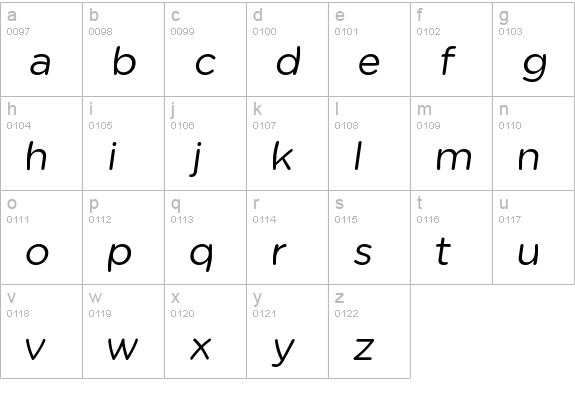
Chams Italic Font Details
Chams Italic is a distinctive, italic variant in the Chams typeface family \xE2\x80\x94 well suited to design and typography projects.
Chams Italic font is a stunning typeface that exudes elegance and sophistication. Its beautifully curved letterforms and graceful strokes make it a perfect choice for adding a touch of class to any design project. With its unique blend of classic charm and modern appeal, Chams Italic font captures attention and leaves a lasting impression. Whether used in invitations, branding, or editorial designs, this font will effortlessly elevate your work to a whole new level of refinement. The free Chams Italic font is not only visually captivating but also highly versatile. It seamlessly adapts to various design styles, making it suitable for a wide range of applications. Its italicized form adds a sense of dynamism and movement, making it ideal for conveying a sense of motion or energy. Downloading Chams Italic font is easy and completely free. Simply visit FontsMarket.com, where you can find this font and many other high-quality typefaces. By making Chams Italic font freely available, it allows designers, creatives, and enthusiasts to access this beautiful font without any barriers. So if you're looking to add a touch of sophistication to your designs without breaking the bank, look no further than Chams Italic font. Download it today from FontsMarket.com and unlock the endless creative possibilities that this elegant typeface has to offer.